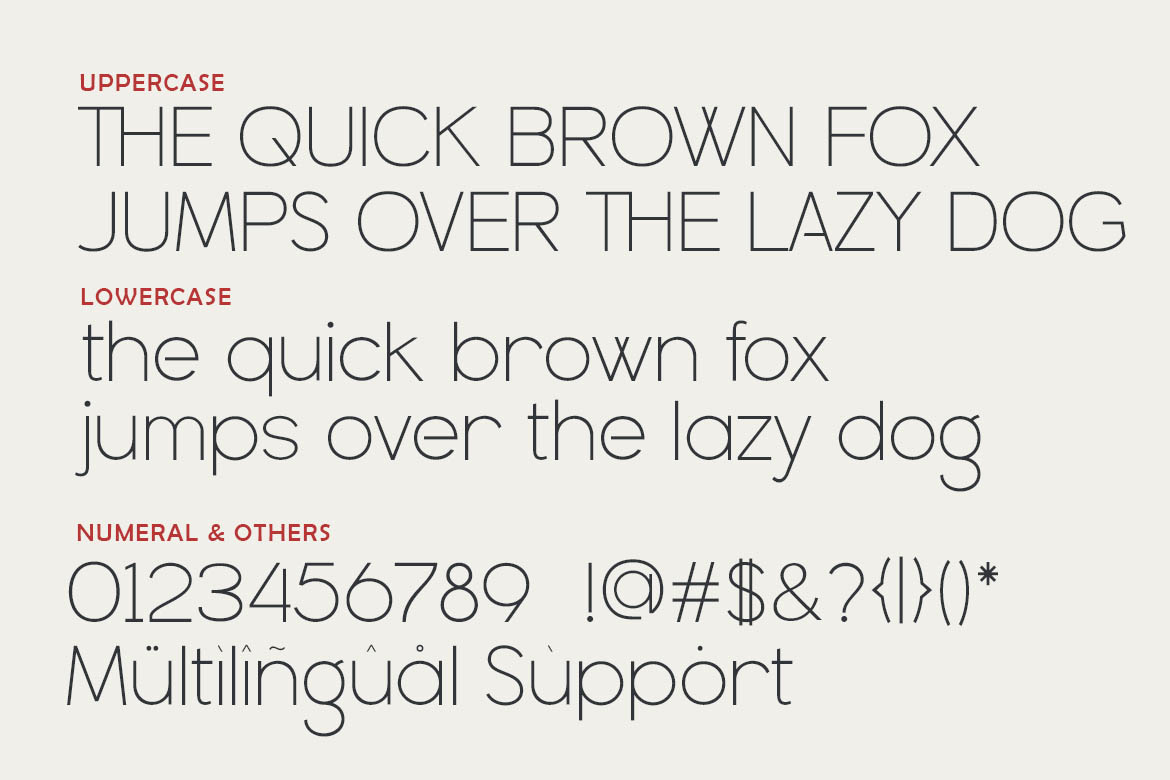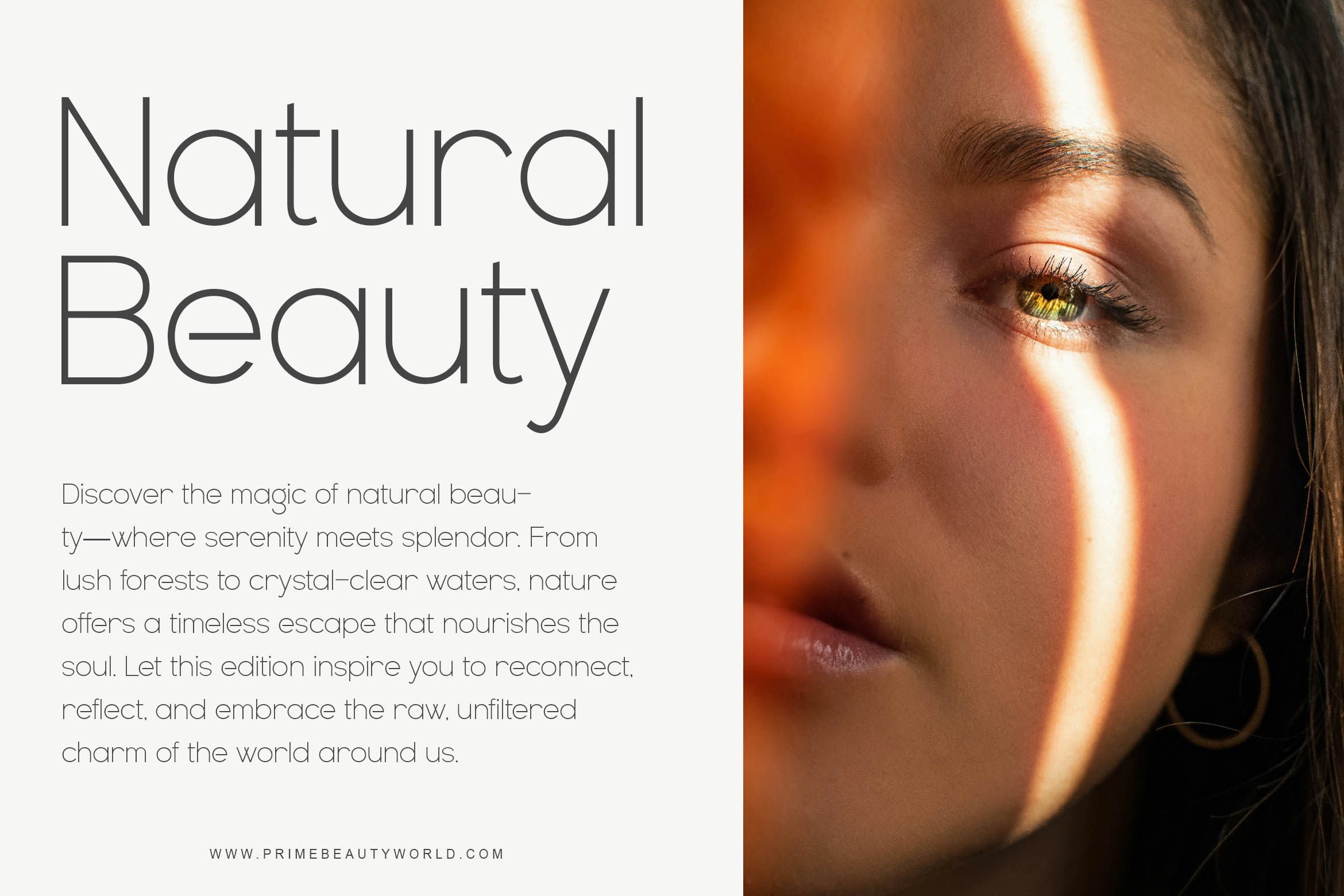
Magic Glowing is a sleek and elegant sans-serif font that embodies modern sophistication. Its clean, minimal lines and subtle geometric curves make it a perfect choice for luxury branding, beauty product packaging, fashion magazine covers, high-end posters, and skincare advertisements.
Crafted with precision, Magic Glowing delivers a timeless aesthetic suitable for upscale designs that demand clarity and class. Whether you're designing for editorial layouts, modern cosmetics, or minimalist logos, this typeface adds a touch of magic and glow to your message.